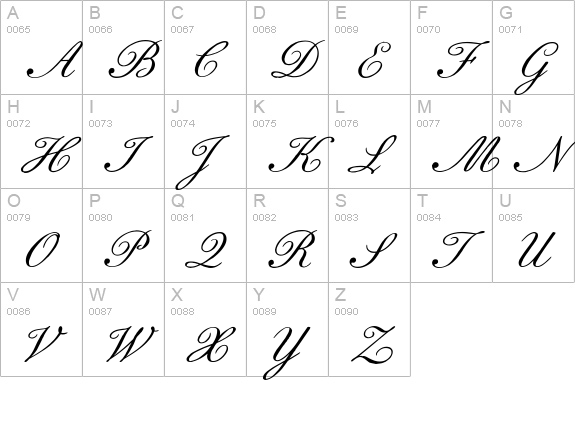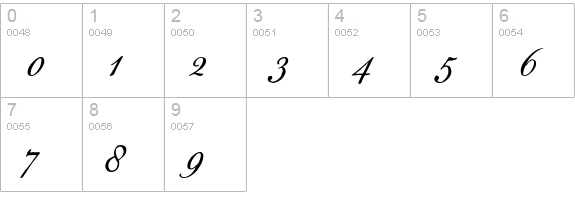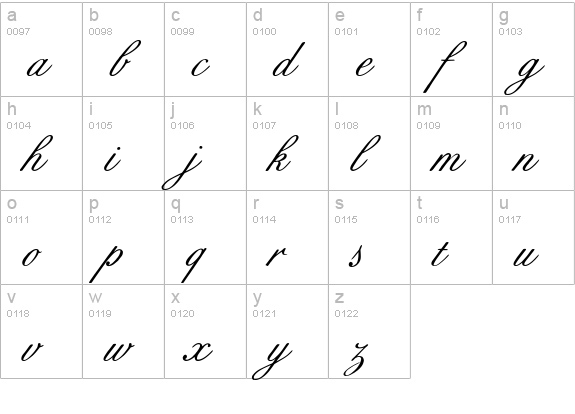
BixAntiqueScriptHmk Font Details
BixAntiqueScriptHmk is a charming and elegant vintage script font that exudes a sense of nostalgia and sophistication. With its delicate curves and intricate details, this font is perfect for adding a touch of old-world charm to your projects. Whether you're designing invitations, branding materials, or any other creative project, BixAntiqueScriptHmk will surely make a lasting impression. The best part? BixAntiqueScriptHmk is available for free download at FontsMarket.com. So you can easily add this beautiful font to your collection without having to worry about any additional costs. Don't miss out on the opportunity to enhance your designs with the timeless beauty of BixAntiqueScriptHmk. Download it today and let your creativity shine!